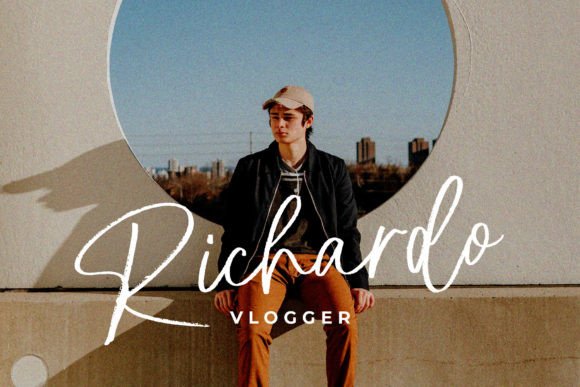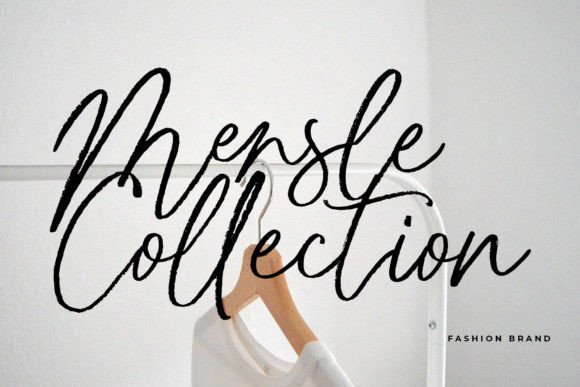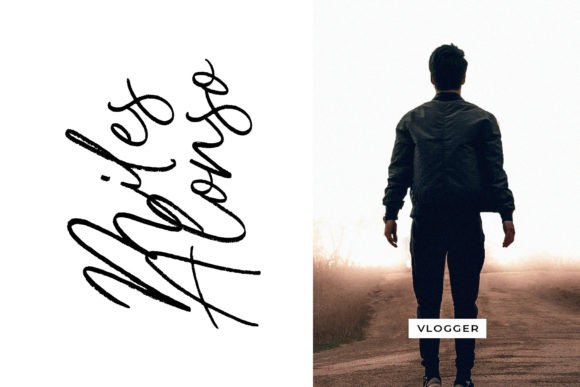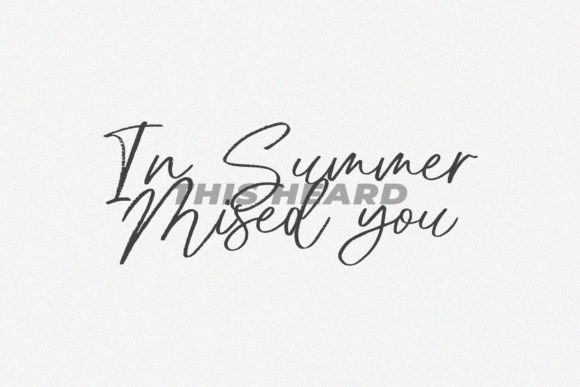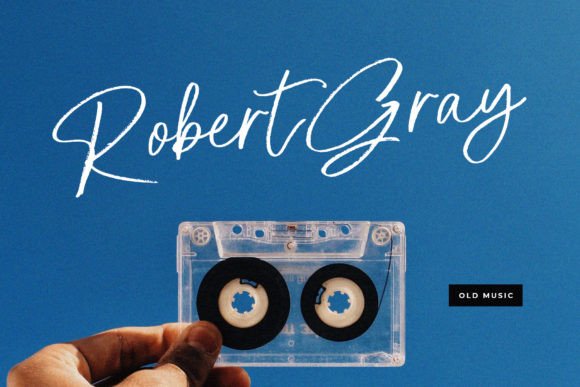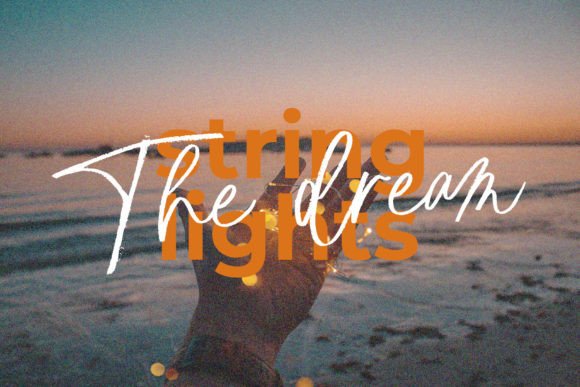
Introduction to Protan Sheyom Font
Have you ever stared at a blank page, waiting for inspiration to strike, only to see a burst of creativity as soon as you pick up a brush pen? For designers, those moments of pure imagination are the spark that sets their projects ablaze. And for those seeking the perfect design resource, the Protan Sheyom Font is about to become your new best friend.
This high-quality script font boasts a natural, brush pen look that’s perfect for a wide range of creative projects, from clothing and posters to book titles and stationery designs. With its transparent background, you can easily combine it with other design elements to create unique and eye-catching visuals. And the best part? You can download the Protan Sheyom Font for free, making it an invaluable addition to any designer’s toolkit.
Key Features of Protan Sheyom Font
- High-quality design resource ideal for creative projects, with a transparent background for versatility.
- Unique, handcrafted design with a distinctive aesthetic, perfect for adding a touch of personality to your creative project.
- Protan Sheyom Font is a versatile design resource suitable for various creative projects, including logos, branding, and digital art.
Honest Review: Protan Sheyom Font
I recently had the chance to work with the Protan Sheyom Font and I must say it’s been a great experience. As a designer, I’m always on the lookout for high-quality design resources to elevate my creative projects.
What works well: ✨ The font is extremely versatile and can be used for a variety of purposes, from logos to typography-based projects. The design is sleek and modern, making it perfect for contemporary designs. Additionally, the font is available for free download, which is a huge plus.
What’s not so great: ⚠️ One of the limitations of the font is that it doesn’t come with a transparent background, which can be a bit of a hassle when working on designs with complex backgrounds. However, this is a minor issue and can be easily resolved with some extra design work.
Overall impression: I’m really impressed with the Protan Sheyom Font and I would definitely recommend it to fellow designers. It’s a great addition to any design resource library and can help take your creative projects to the next level.
- High-quality design makes it perfect for contemporary designs
- Available for various purposes, from logos to typography-based projects
For the best results, use the Protan Sheyom Font in conjunction with a transparent background to create a clean and modern design. Experiment with different font sizes and styles to add visual interest to your project.
The Protan Sheyom Font is perfect for a variety of creative projects, including logo design, branding, and packaging. Its high-quality design and transparent background make it an ideal choice for designers looking for a unique and eye-catching font.